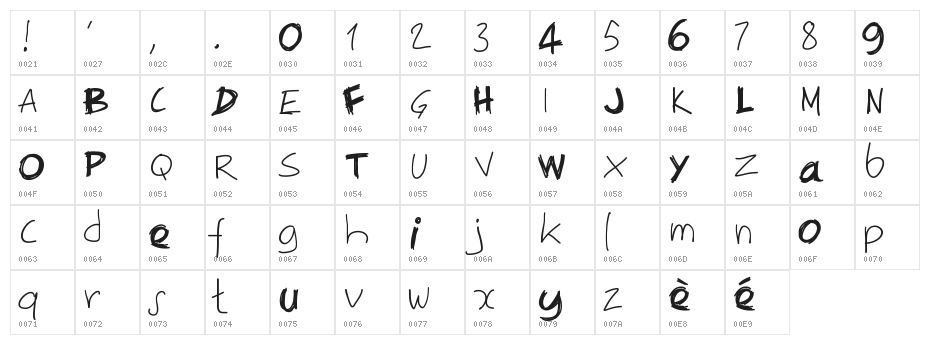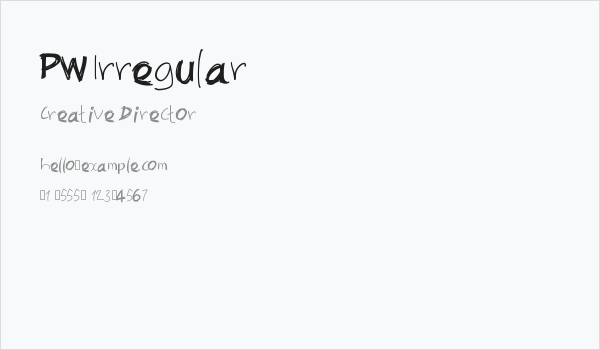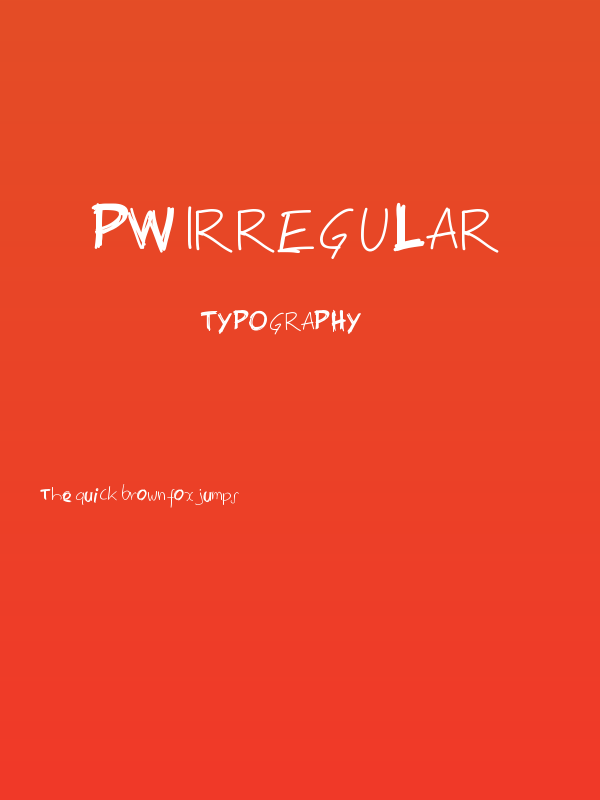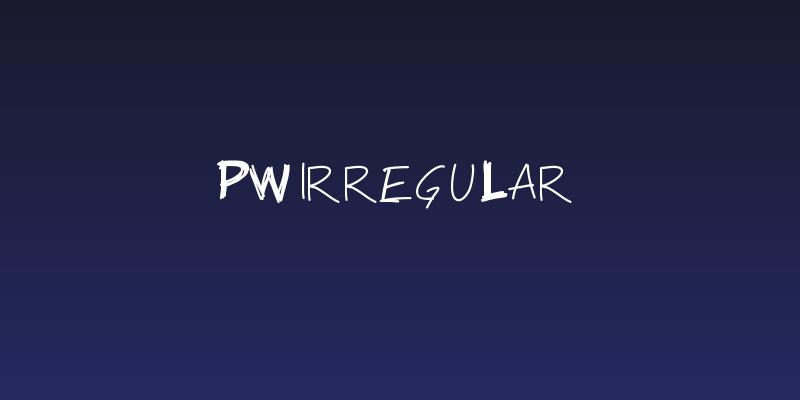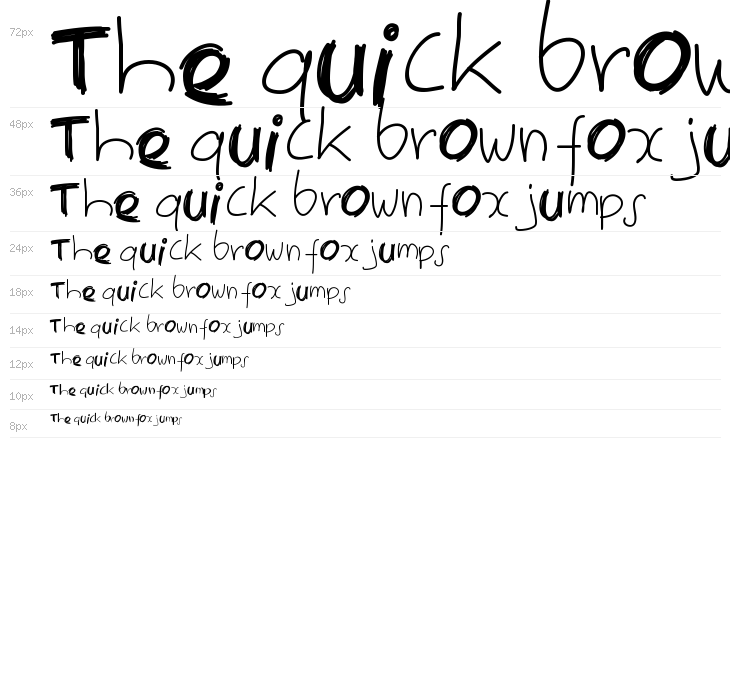
PWIrregular Font
PWIrregular Description
This font features an irregular, hand-drawn style with a playful and dynamic appearance. The letters are unevenly weighted, with some strokes appearing thicker than others, giving it a casual and spontaneous feel. The uppercase letters are bold and assertive, while the lowercase letters maintain a quirky, relaxed vibe. Numbers and special characters follow the same irregular pattern, adding to the overall whimsical aesthetic. The font's unique character makes it stand out, perfect for projects that require a touch of creativity and informality.
| Proposed Projects | Ideal for creative projects such as children's books, comic strips, informal posters, and playful branding. |